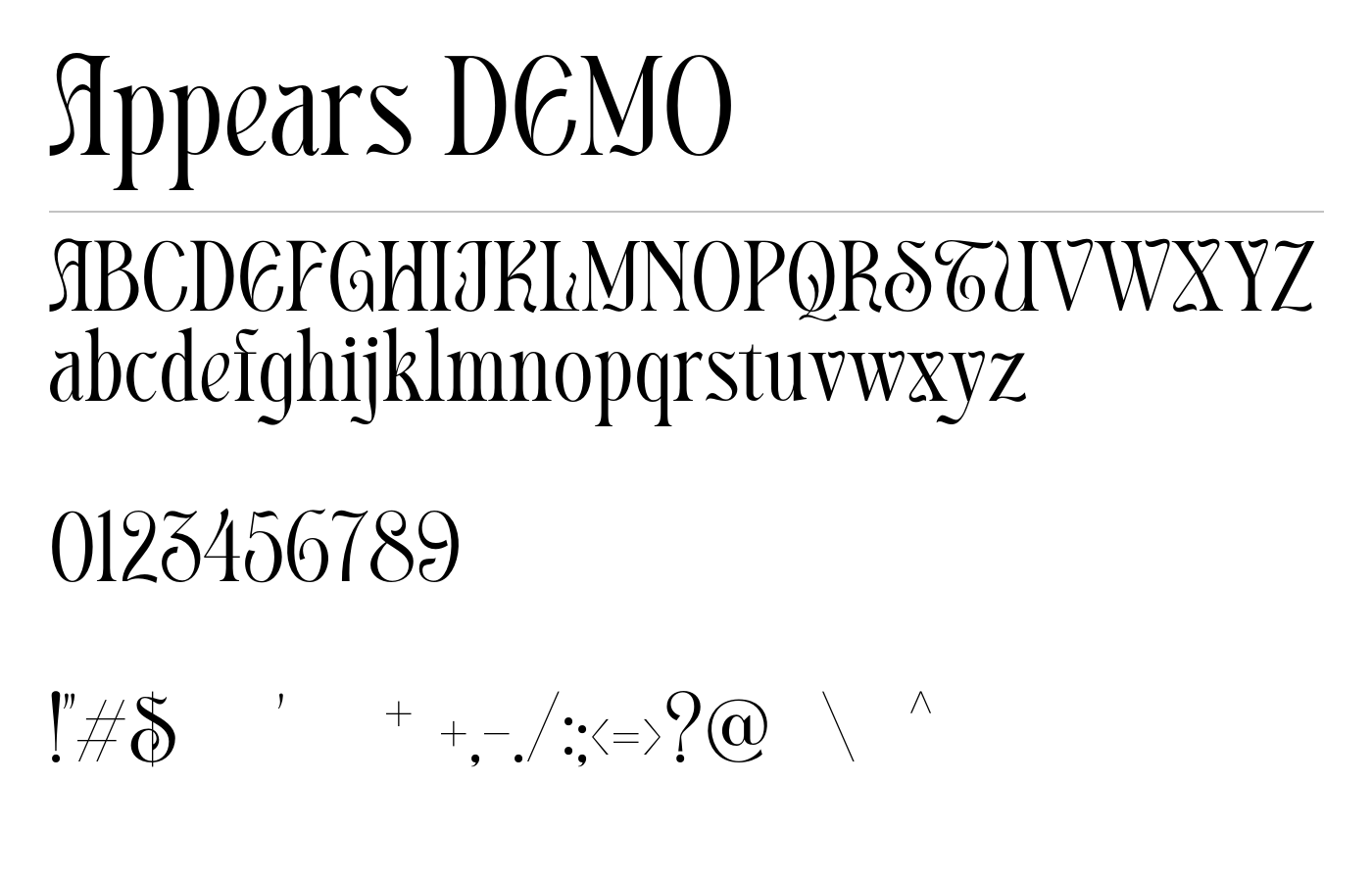
Appears DEMO is an elegant serif font with a distinctive modern flair, featuring high contrast between thick and thin strokes and unique, decorative letterforms that combine sharp serifs and intricate curves. Its narrow width and tall x-height create a sophisticated, slightly vintage look, making it ideal for luxury branding, editorial headlines, and creative packaging where a refined and artistic impression is desired. This font stands out with its artistic details while maintaining readability, perfectly suited to upscale and stylish designs.
Appears DEMO Font
About Appears DEMO Font